Readability
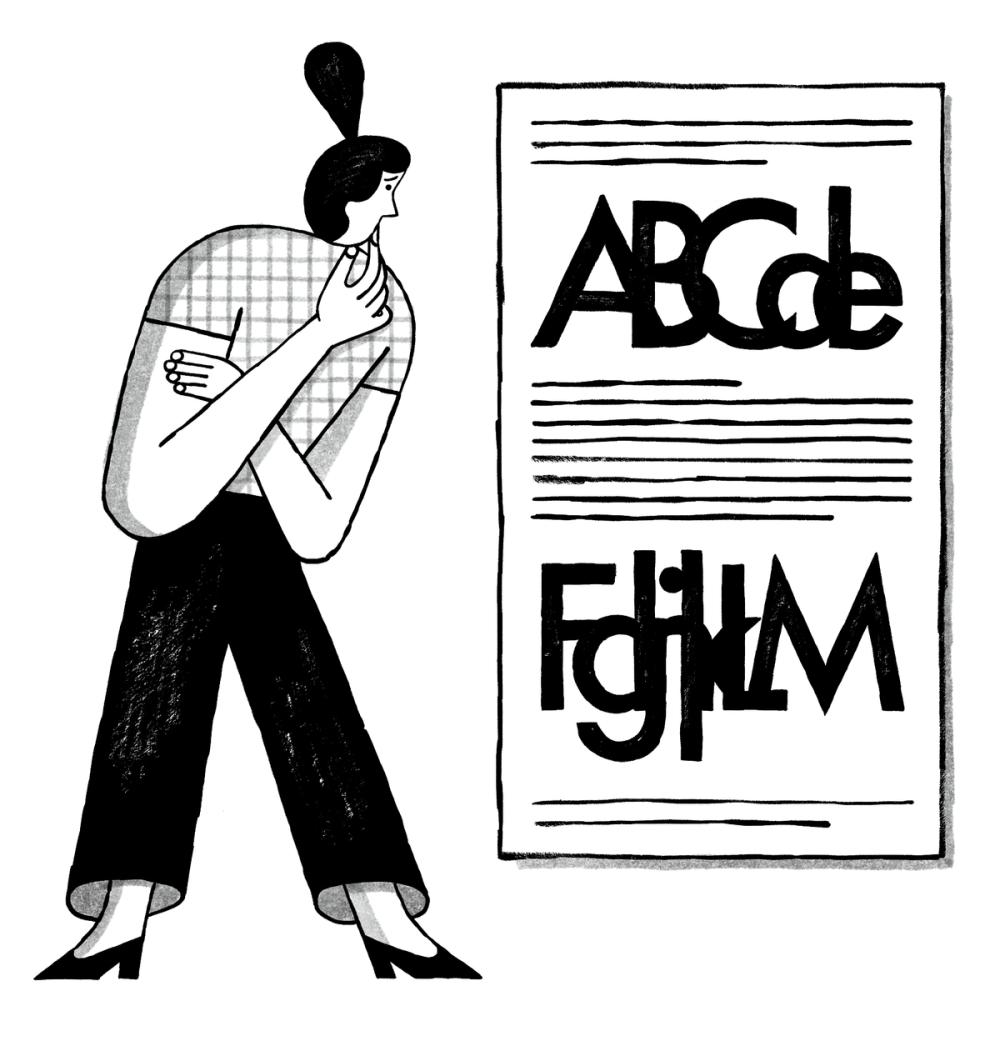
In typography, readability refers to the ease with which a text may be read. The readability of a text is influenced by many aspects (listed in the quote below) other than the text itself. Readability is a concept often confused with legibility.
“The readability of a text is influenced not only by the choice of typeface, type size, correct or incorrect letter and wordspacing, and the length of line, but also by the linespacing or interlinear space, often termed ‘leading’.”
Jost Hochuli (translated by Charles Whitehouse) in Detail in typography.